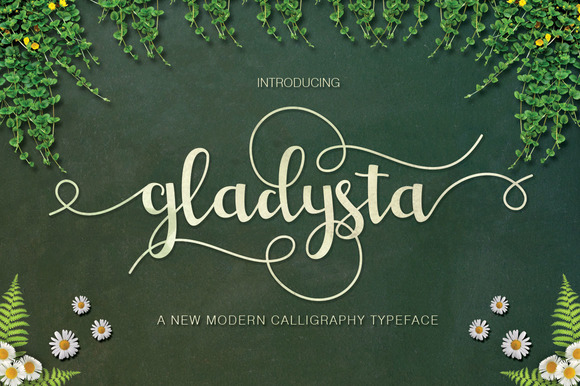
Step into the world of refined elegance with Gladysta Script, a modern calligraphy typeface that will elevate your visual masterpiece to new heights. Its beautiful and dancing baseline captivates the eye, creating a sense of joy and movement in your designs.
Crafted with precision, Gladysta Script embodies the perfect blend of brush lettering and traditional hand writing. Its intricate swashes and delicate flourishes bring a touch of sophistication to every character, ensuring your message leaves a lasting impression.
Perfect for personal branding, Gladysta Script adds a touch of individuality to your business cards, wedding invitations, stamps, and greeting cards. Transform your quotes and posters into works of art, captivating your audience with its timeless charm.
With Gladysta Script, you'll discover endless creative possibilities. Its versatility shines through in both digital and print applications, making it the perfect choice for logos, branding, social media graphics, product packaging, and so much more.
Don't settle for ordinary fonts. Embrace the exquisite beauty of Gladysta Script and watch your designs come alive with an enchanting aura. Its user-friendly format makes it easy to integrate into your projects, allowing you to focus on your creative vision.
Experience the magic of Gladysta Script today. Its unique style and impeccable quality will leave you awe-inspired, and your audience captivated. Prepare to be delighted by a font that truly captures the essence of modern calligraphy.